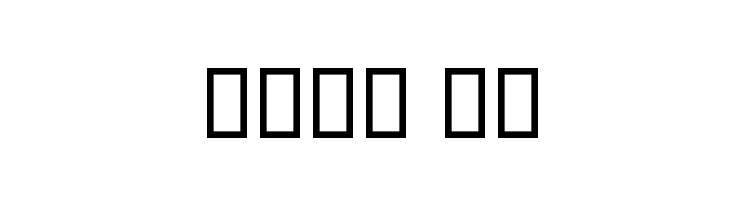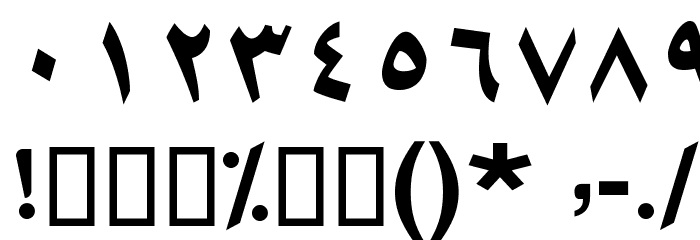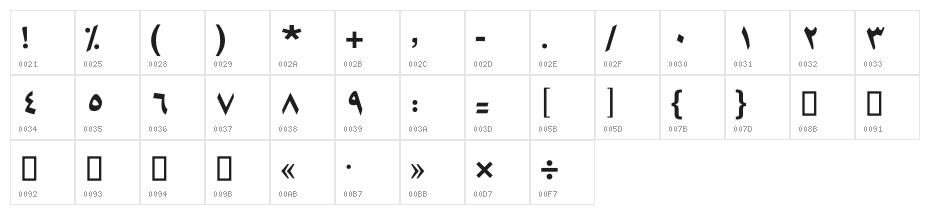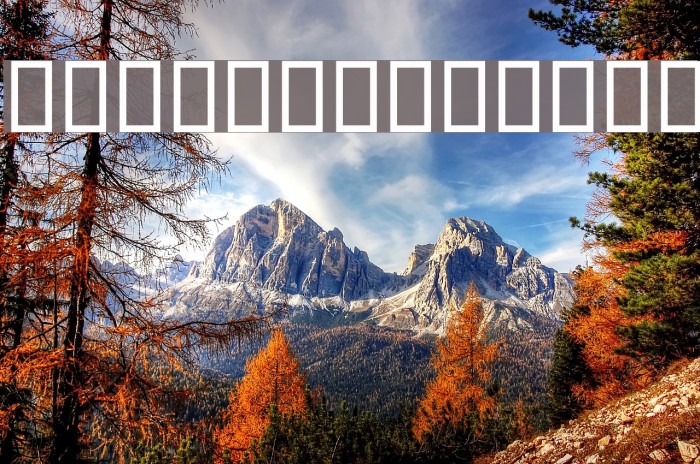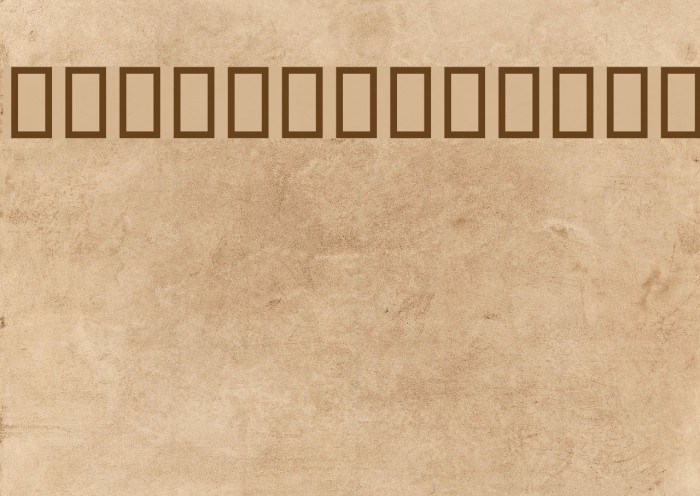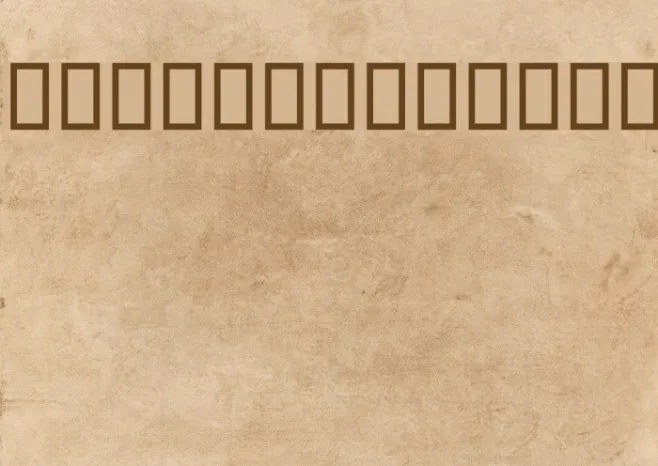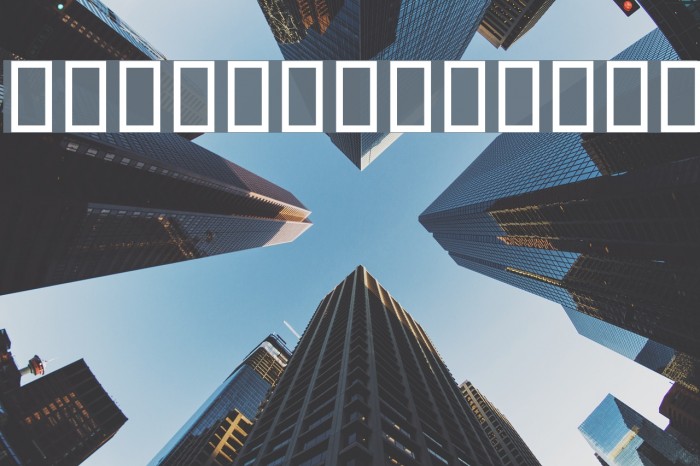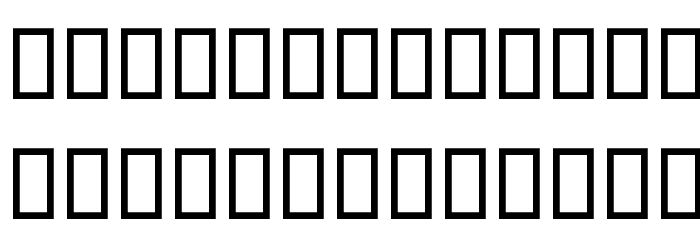
Ohod II Font
Ohod II Description
This font features a bold and dynamic style with a strong presence. The characters are designed with a unique flair, incorporating sharp angles and a slightly futuristic aesthetic. The numbers are particularly distinctive, with a slanted, italicized form that adds a sense of motion and energy. The special characters maintain the same boldness, ensuring consistency across the font. This typeface is ideal for projects that require a modern and impactful look, such as branding, advertising, or digital media.
| Proposed Projects | Ideal for branding, advertising, digital media, and any project needing a modern, impactful look. |